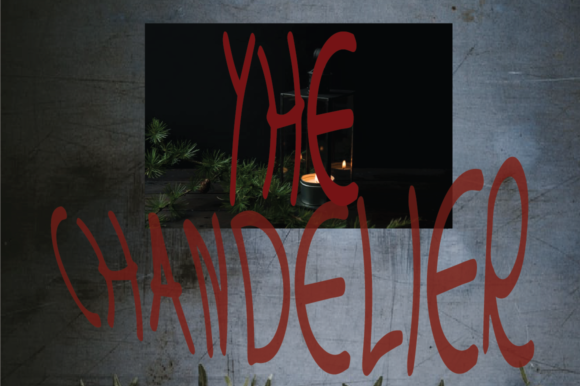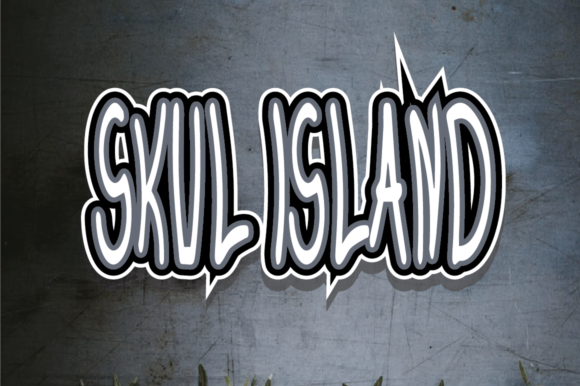
Aulumview Font: Bringing Life to Your Designs with a Playful Twist
In the world of design, fonts play a crucial role in conveying the tone and personality of a project. Aulumview font is a stunning display font that can instantly elevate your designs with its beautiful and playful aesthetic. This versatile font is perfect for designers and crafters looking to add a bold and confident feel to their work.
The Characteristics of Aulumview Font
Aulumview is a display font that boasts a unique and eye-catching design. Its playful and beautiful aesthetic makes it perfect for a wide range of projects, from creative crafts to digital designs. The font features:
- Bold and Confident Look: Aulumview font has a bold and confident appearance that can instantly grab attention.
- Playful Aesthetic: The font’s playful design makes it perfect for creative projects that require a fun and lively touch.
- Versatility: Aulumview font can be used on a variety of products and designs, making it a great addition to any design library.
Uses of Aulumview Font
Aulumview font is an incredibly versatile font that can be used on a wide range of products and designs. Some of the most popular uses of this font include:
- Digital Designs: Aulumview font is perfect for digital designs, such as social media graphics, blog headers, and website titles.
- Creative Crafts: The font’s playful aesthetic makes it ideal for creative crafts, such as handmade cards, scrapbooking, and DIY projects.
- Branding and Packaging: Aulumview font can be used to create bold and eye-catching branding and packaging designs.
- Signage and Displays: The font’s bold and confident look makes it perfect for signage and display designs.
Benefits of Using Aulumview Font
Using Aulumview font in your designs can have numerous benefits. Some of the most significant advantages of this font include:
- Instantly Elevates Your Designs: Aulumview font can instantly elevate your designs with its bold and playful aesthetic.
- Versatility: The font’s versatility makes it perfect for a wide range of projects and designs.
- Easy to Read: Despite its bold and playful design, Aulumview font is easy to read, making it perfect for use in a variety of contexts.
Tips for Using Aulumview Font
To get the most out of Aulumview font, here are some tips to keep in mind:
- Use it as a Display Font: Aulumview font is perfect for use as a display font, where it can be used to grab attention and create a bold statement.
- Pair it with Other Fonts: Aulumview font can be paired with other fonts to create a unique and visually appealing design.
- Experiment with Colors and Textures: The font’s playful aesthetic makes it perfect for experimenting with different colors and textures.
Aulumview font is a beautiful and playful display font that can bring life to any project. Its bold and confident aesthetic makes it perfect for a wide range of designs, from digital designs to creative crafts. With its versatility, ease of use, and bold design, Aulumview font is a great addition to any design library.